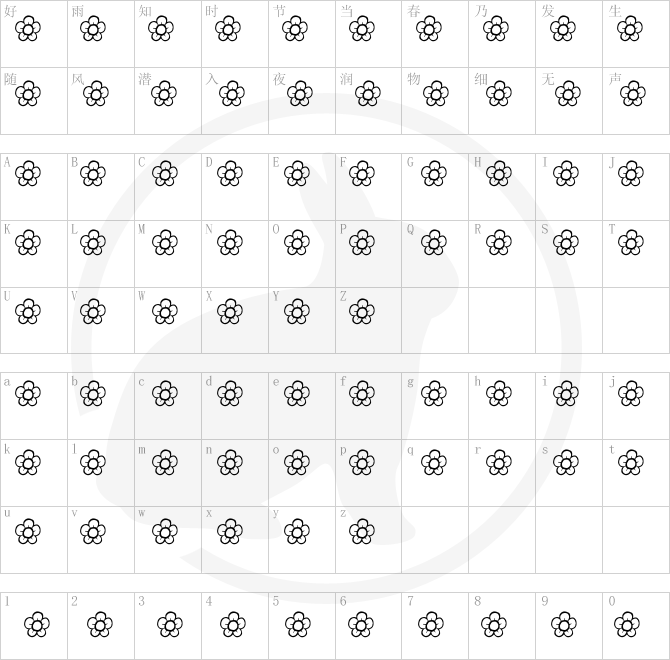
- Font Name:2 September
2-September.ttf is a very beautiful artistic font, 2-September.ttf is widely used in the design and printing of various books and pictures,2-September.ttf has a strong visual impact,2-September.ttf is a commonly used font in newspapers, magazines and books, and is used in posters, e-commerce Poster design, store design, logo design, font design and other fields.2-September.